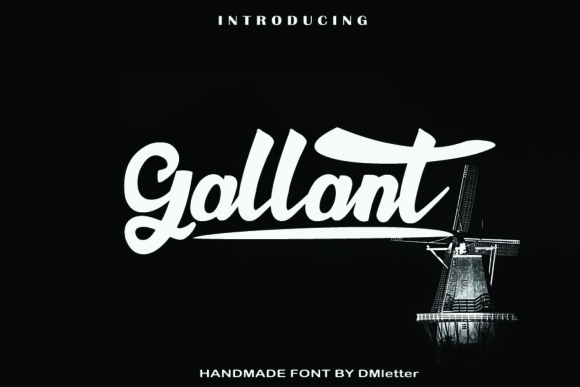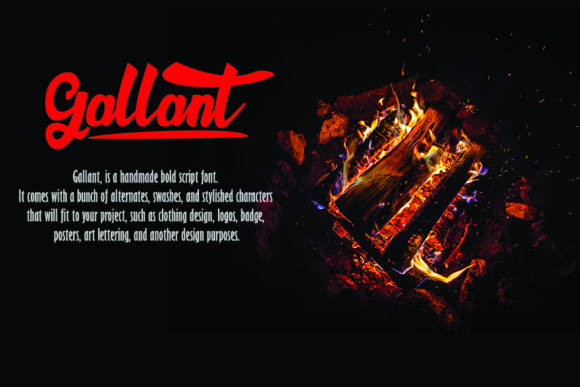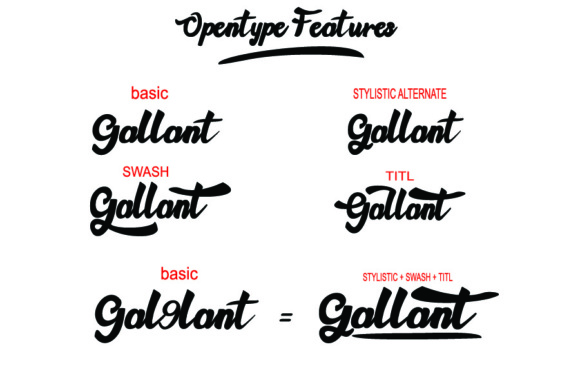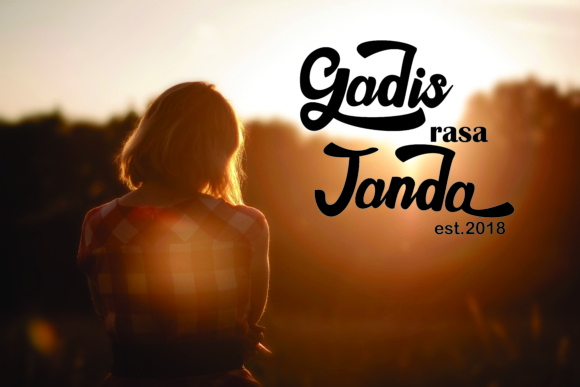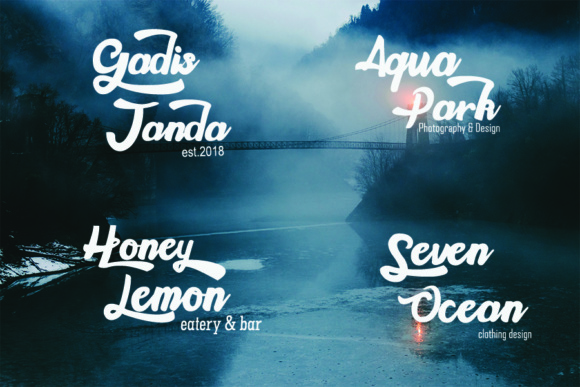
Gallant Font
About Gallant Font
Gallant is a stunning, handmade headline font that will give all your designs a bold, head-turning look! This font comes with stylish characters and stunning swashes so you can create nostalgic, painterly looking typographic designs.